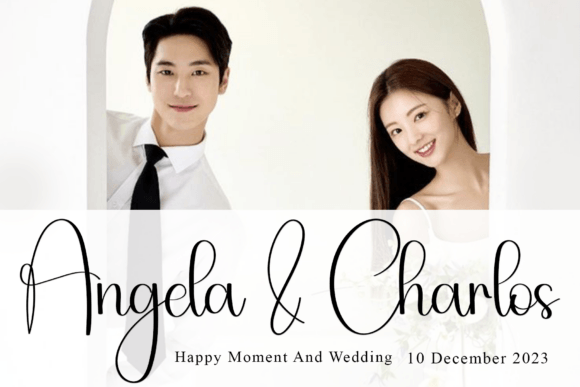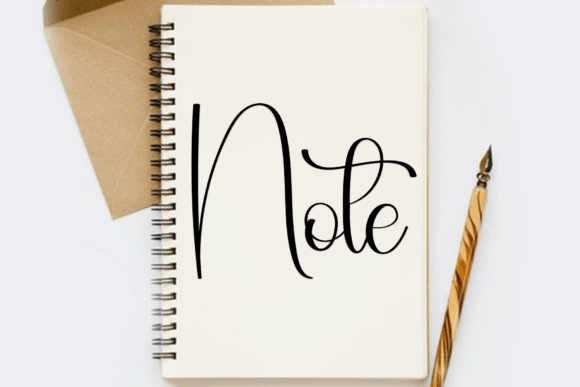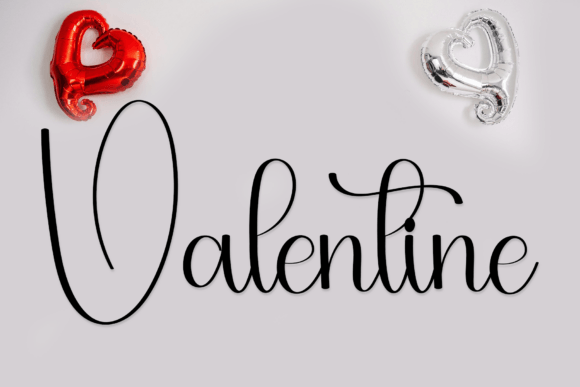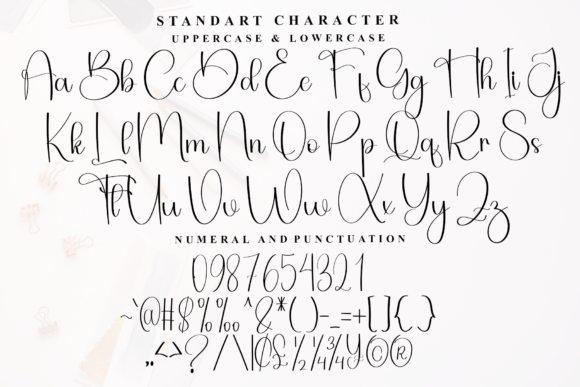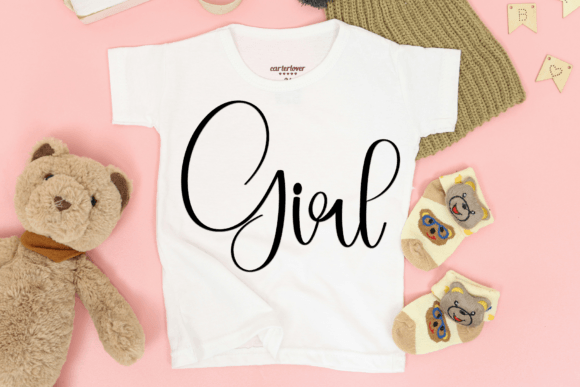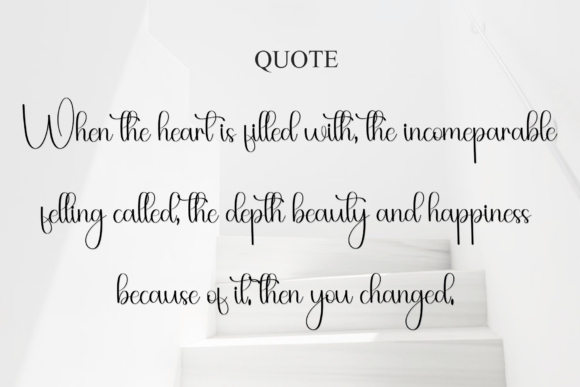
The Dreamy Font That Stole My Heart: A Deep Dive into Dreamsky
I still remember the design project that led me to discover Dreamsky. I was working on a whimsical invitation for a friend’s birthday party, and I was struggling to find the perfect font. I wanted something that exuded warmth, friendliness, and a touch of playfulness. After hours of scrolling through font libraries, I stumbled upon Dreamsky, and it was love at first sight! ✨
An Honest Review of Dreamsky
What I Love About Dreamsky
- ✨ Its casual and creative vibe makes it perfect for personal projects, invitations, and social media graphics.
- ✅ The round, playful strokes create a relaxed and approachable feel that’s hard to achieve with other fonts.
- 💕 The charming, hand-drawn aesthetic adds a fun and unique touch to any design.
While Dreamsky is an amazing font, it’s not perfect. Here are a few things to keep in mind:
- ⚠️ Some users might find the font a bit too casual or informal for certain projects.
- 🤔 The font’s playful strokes might not be suitable for very small font sizes or detailed designs.
The Story Behind Dreamsky
Dreamsky was designed with the intention of creating a font that feels like a warm hug. The designer wanted to craft a font that would make users feel like they’re creating something special and personal. With its playful strokes and charming aesthetic, Dreamsky is the perfect font for anyone looking to add a touch of whimsy to their designs.